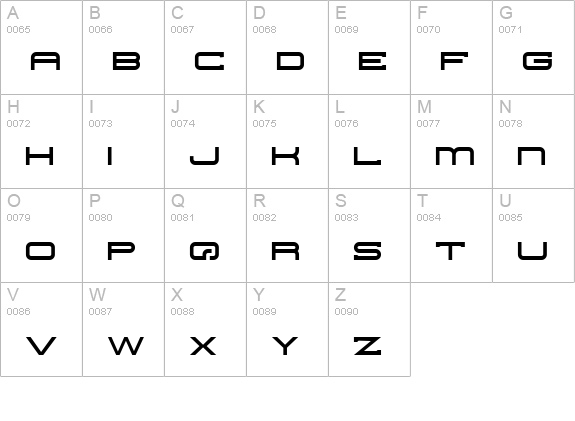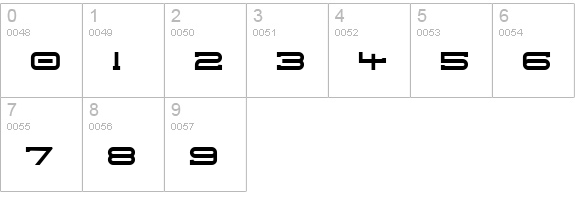
Troglodyte Font Details
Troglodyte font is a mesmerizing typeface that exudes a unique and enigmatic charm. This font is meticulously crafted to captivate and engage the reader, making it perfect for a wide range of creative projects. With its distinctive letterforms and intricate details, Troglodyte font is sure to leave a lasting impression. What makes Troglodyte font even more remarkable is the fact that it is available for free. Yes, you heard it right! This extraordinary font can be freely downloaded from FontsMarket.com, making it accessible to everyone. Whether you are a professional designer or an aspiring artist, Troglodyte font allows you to experiment and express your creativity without any limitations. The elegance of Troglodyte font lies in its versatility. It can effortlessly adapt to various design concepts, from elegant and sophisticated to edgy and modern. Its clean and well-defined lines ensure excellent legibility, even at small sizes, making it suitable for both print and digital applications. Troglodyte font's unique character set includes uppercase and lowercase letters, numerals, punctuation marks, and special symbols, providing ample possibilities for typographic compositions. Whether you are designing a logo, branding materials, posters, or even a website, this font will add a touch of uniqueness and flair to your project. So, don't miss out on this opportunity to enhance your designs with the captivating Troglodyte font. Head over to FontsMarket.com today and download this remarkable font for free. Unleash your creativity and let Troglodyte font elevate your designs to new heights.